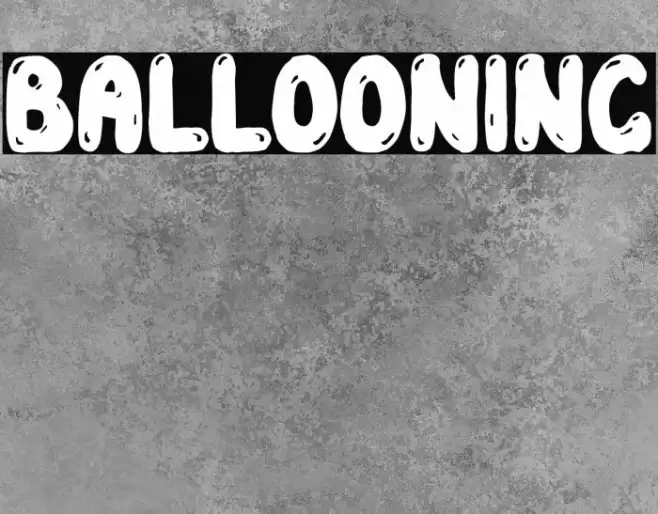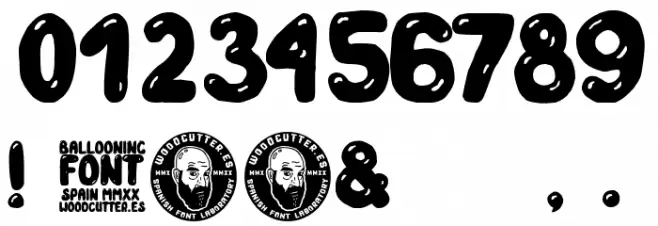
Ballooning Font
Ballooning Description
This playful and whimsical font features bold, rounded characters that resemble inflated balloons. Each letter has a smooth, bubbly appearance, with consistent thickness throughout, giving it a fun and approachable feel. The font is highly decorative, making it ideal for projects that require a touch of humor or lightheartedness. Its unique style is characterized by a lack of sharp edges, contributing to its soft and friendly aesthetic. The font includes both uppercase and lowercase letters, numbers, and a selection of special characters, all maintaining the same balloon-like quality.
A playful, balloon-inspired font with rounded, bold characters from Comic fonts.
- Proposed Projects: Ideal for children's books, party invitations, playful branding, and any project needing a fun, lighthearted touch.